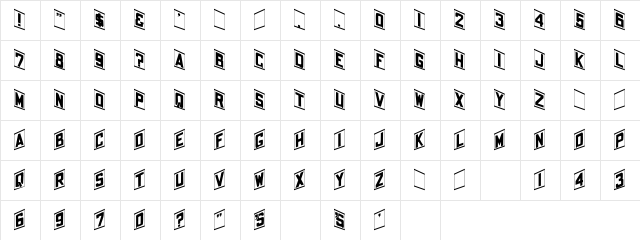
Love Gun 1 Plain Font Preview
Love Gun 1 Plain
Love Gun 1 Plain Font Details
Design Context for Love Gun 1 Typeface
Love Gun 1 is a composed and adaptable typeface that performs quietly and consistently across a wide range of design contexts.